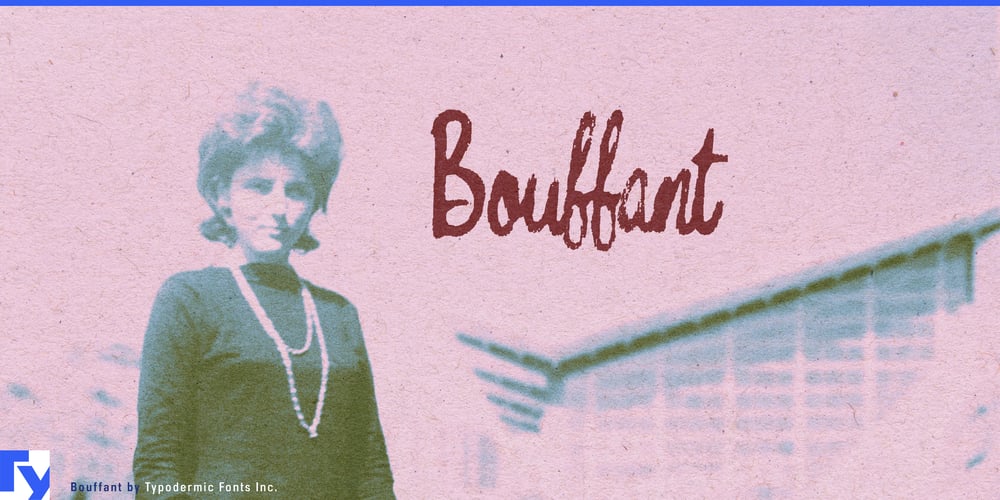
Bouffant
Bouffant font
Bouffant Font Family was designed by Ray Larabie and published by Typodermic. Bouffant contains 1 styles and family package options. Step into the 1950s with Bouffant, a script typeface that captures the era’s iconic style. This font family blends compact retro curls with a touch of genuine grit, creating a perfect balance of glamour and authenticity.Bouffant’s bespoke ligatures reduce repetition, resulting in text that flows naturally, as if hand-lettered. Whether you’re designing posters, t-shirts, or packaging, Bouffant brings the charm of mid-century America to life. Supporting most Latin-based European writing systems, Bouffant speaks the language of nostalgia across cultures. It’s more than a font—it’s a time machine, transporting your audience to an era of soda fountains and rock ‘n’ roll.Choose Bouffant for designs that don’t just look retro, but feel like authentic artifacts from the past. Let its curves and flourishes tell stories of a bygone era, adding a touch of vintage magic to your contemporary creations.Embrace the spirit of the 1950s with Bouffant, and watch your typography swing, jive, and come alive with timeless appeal.